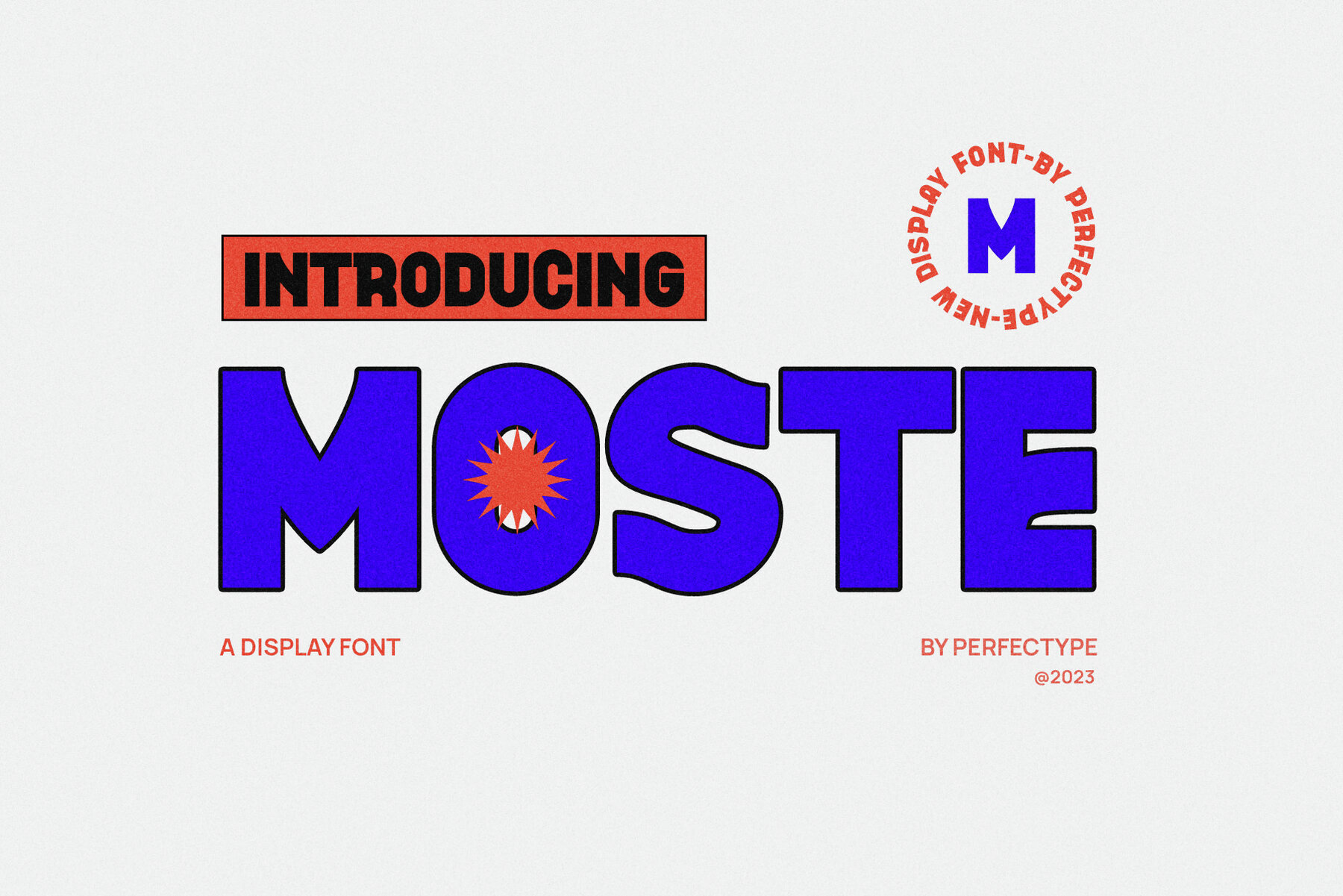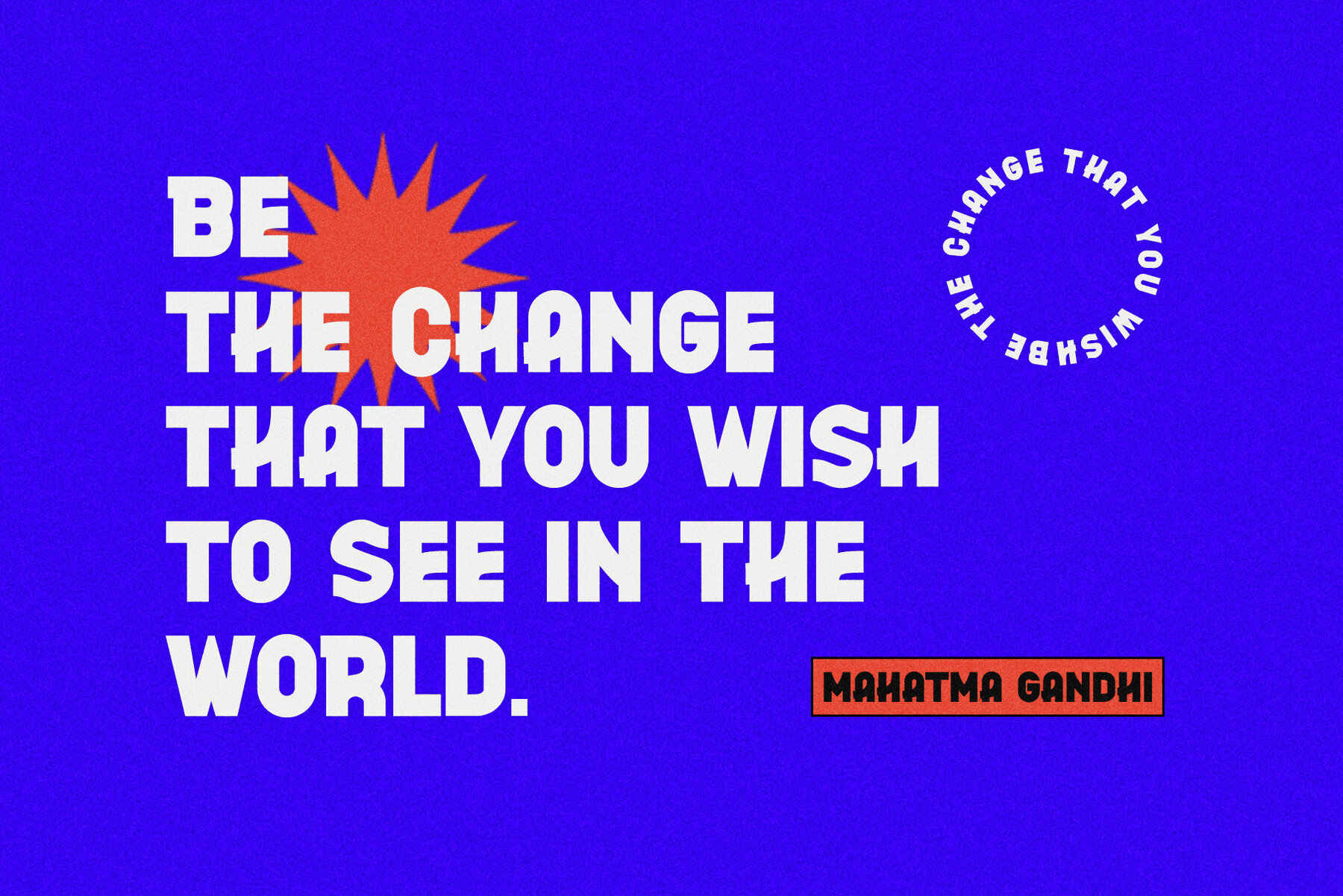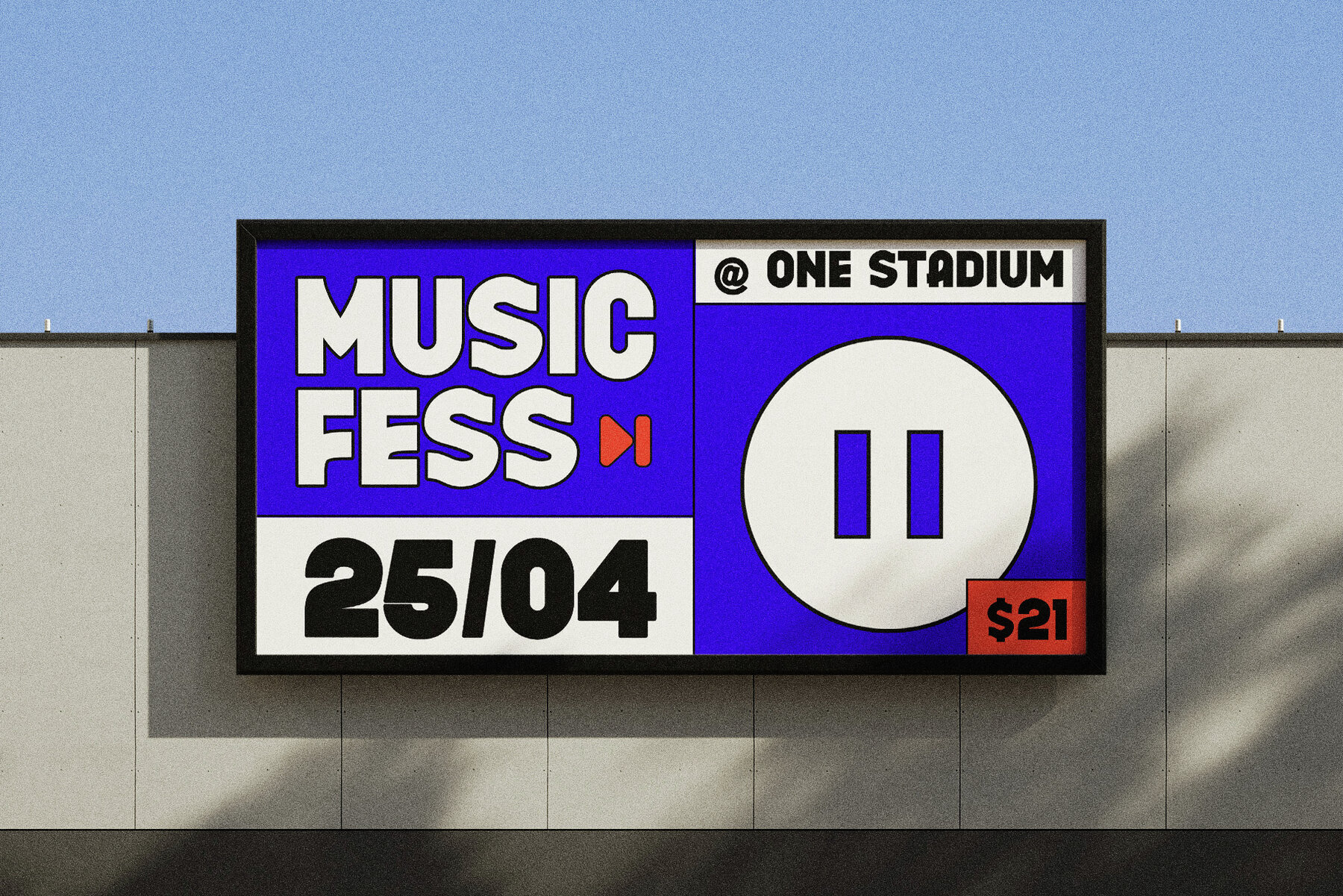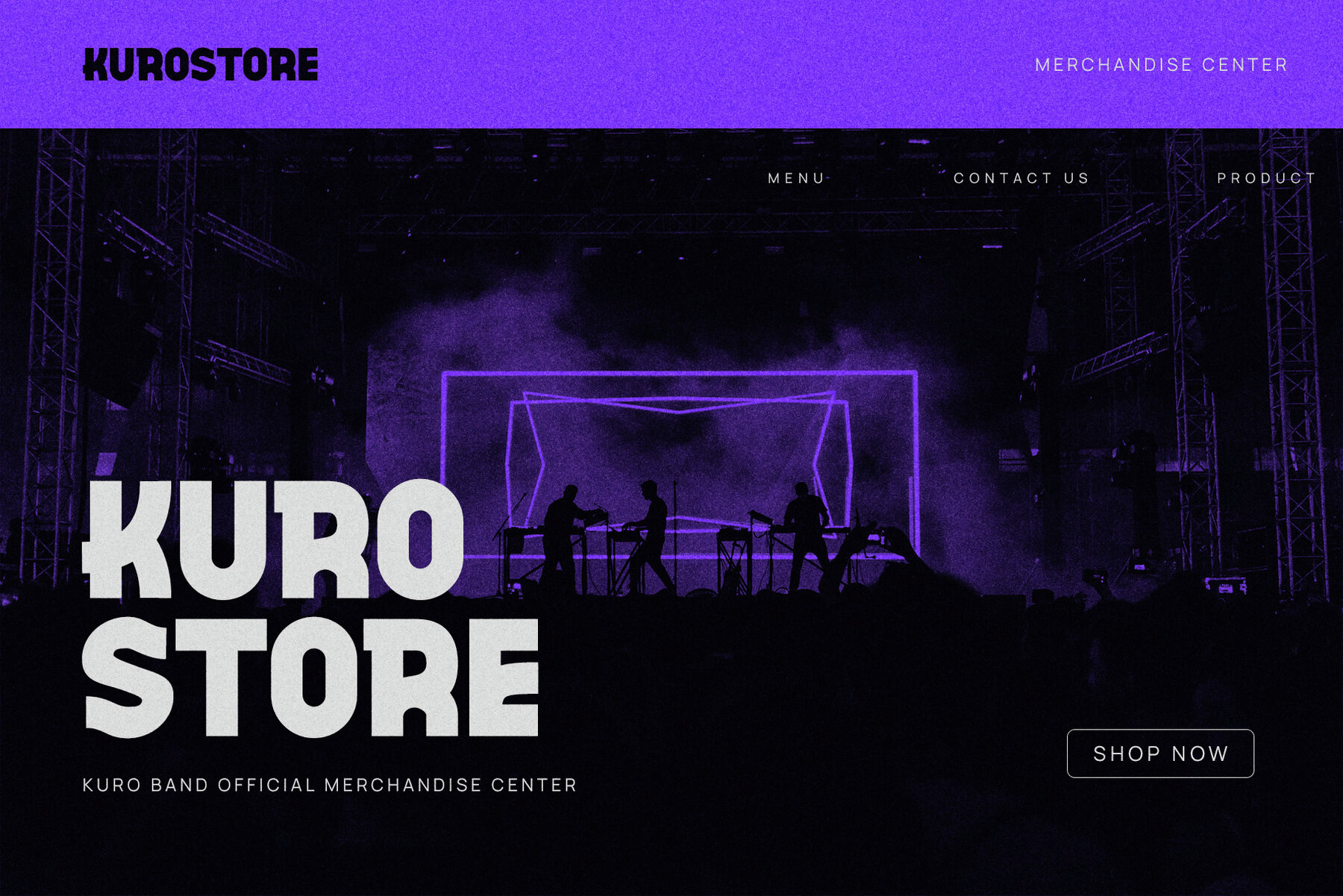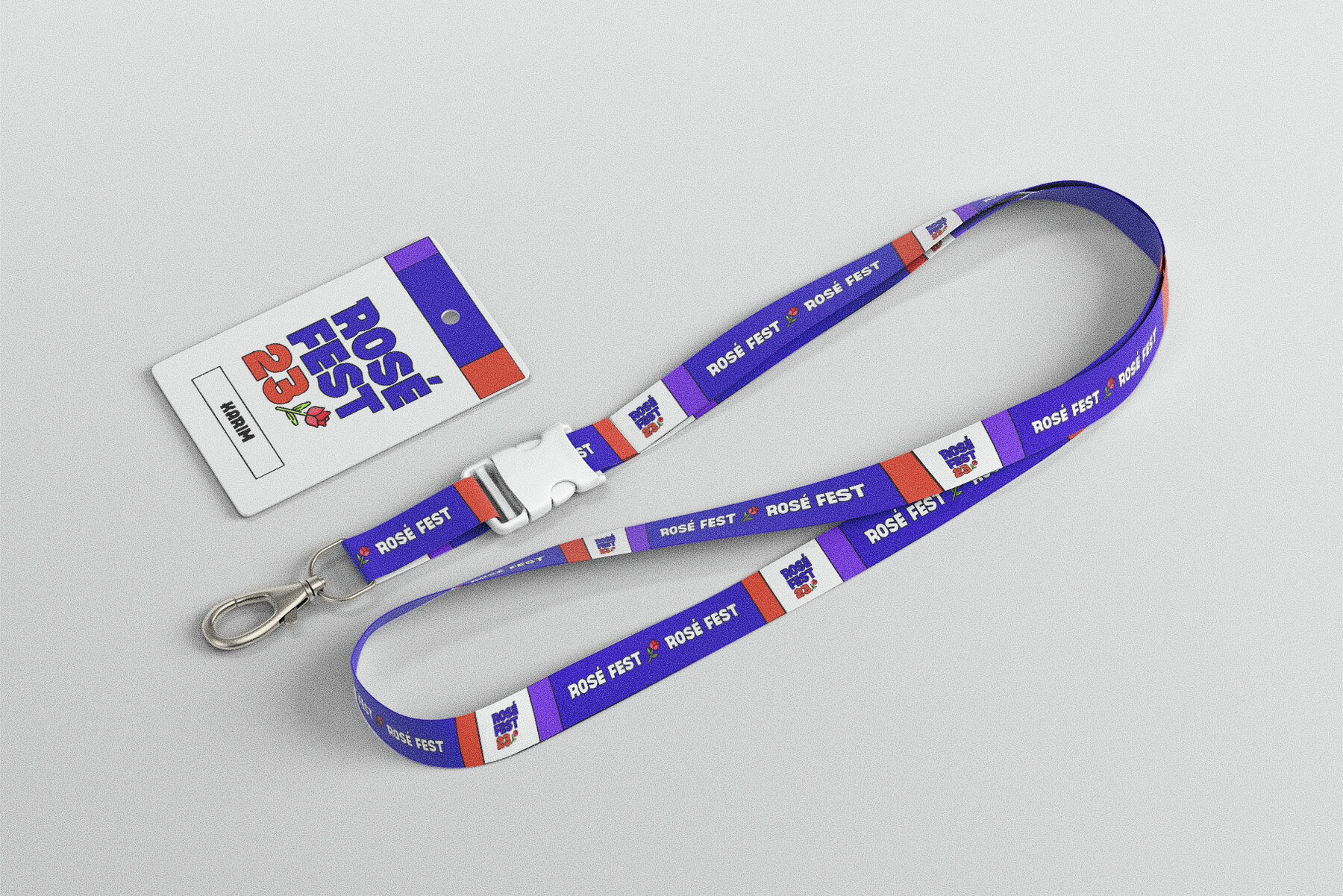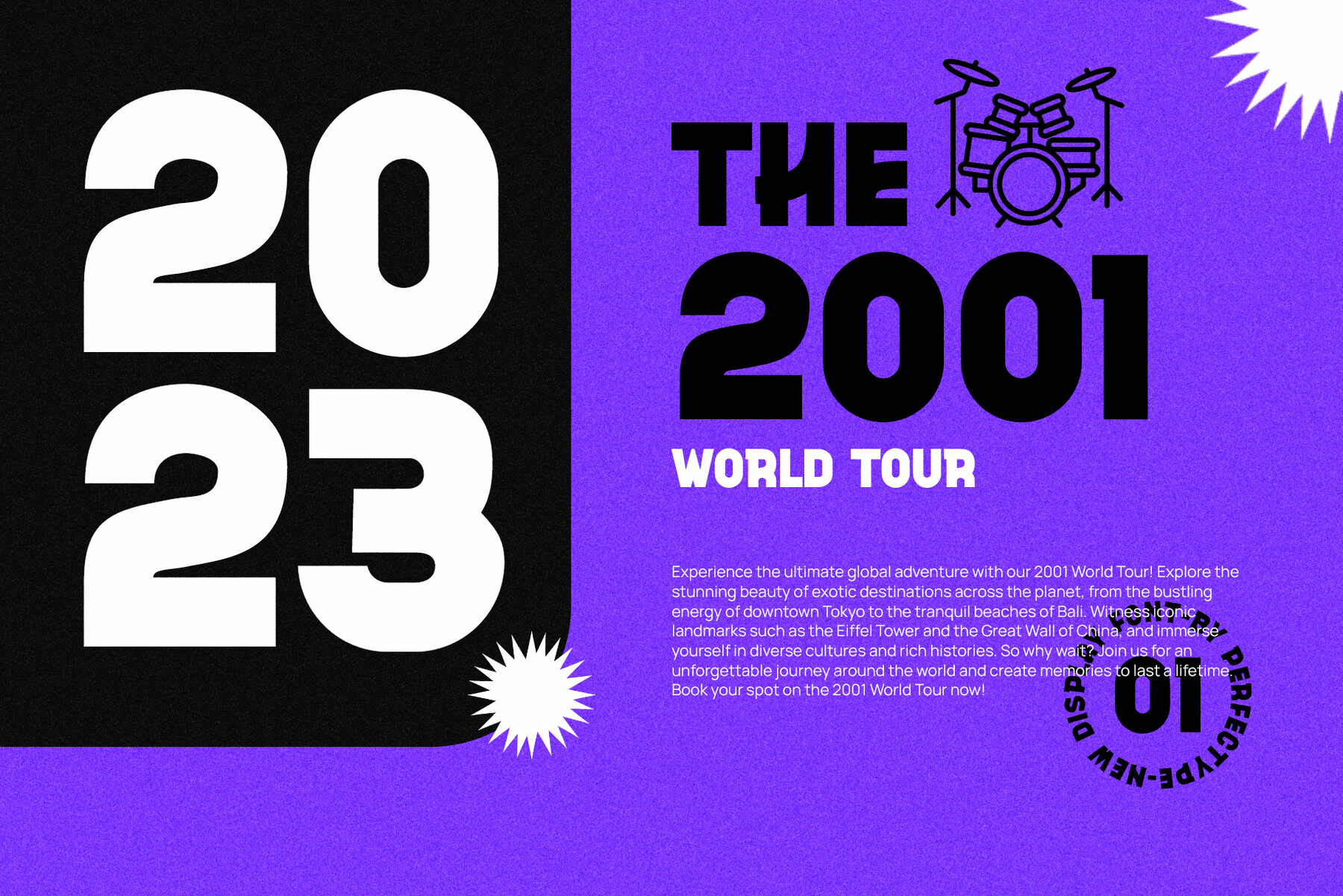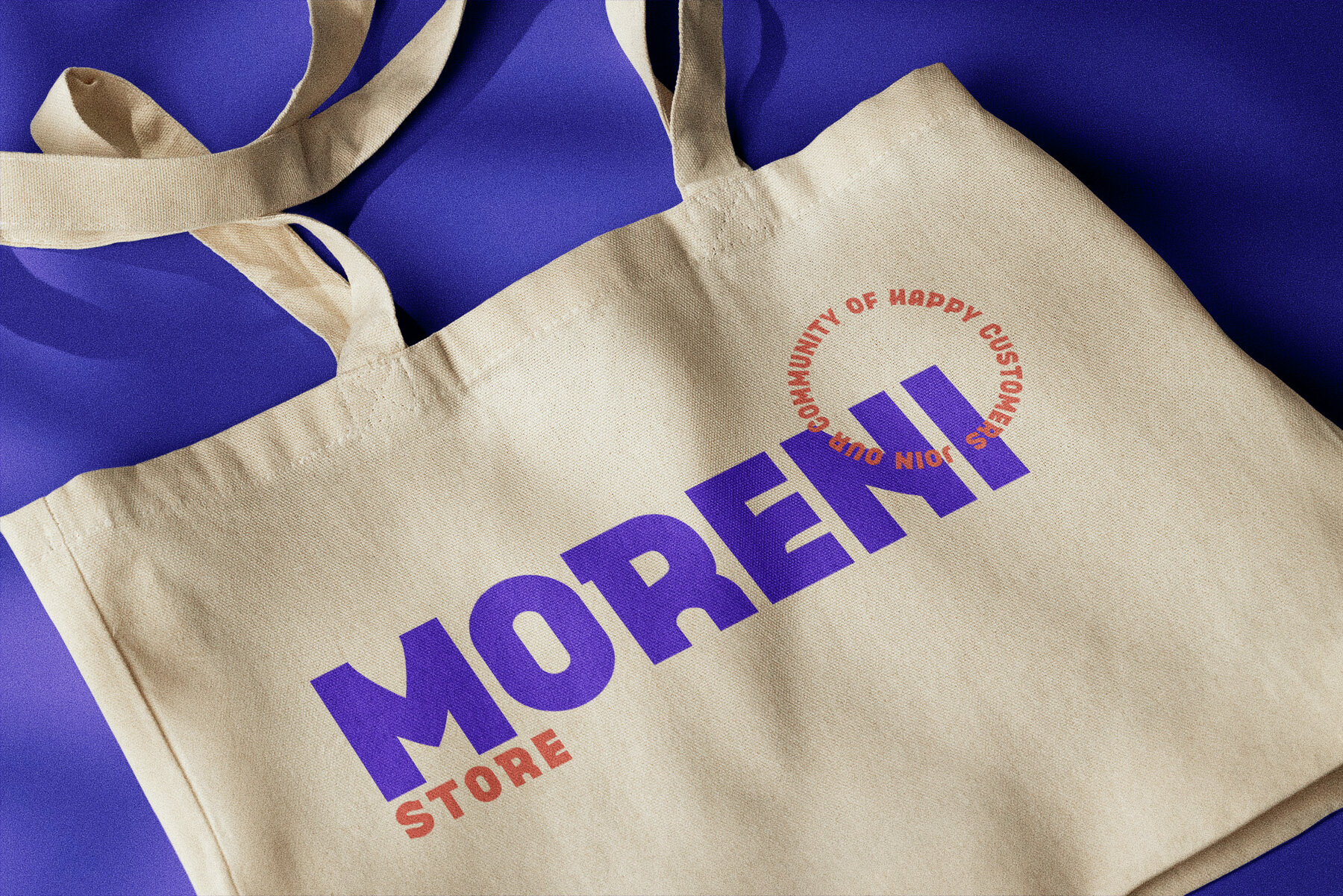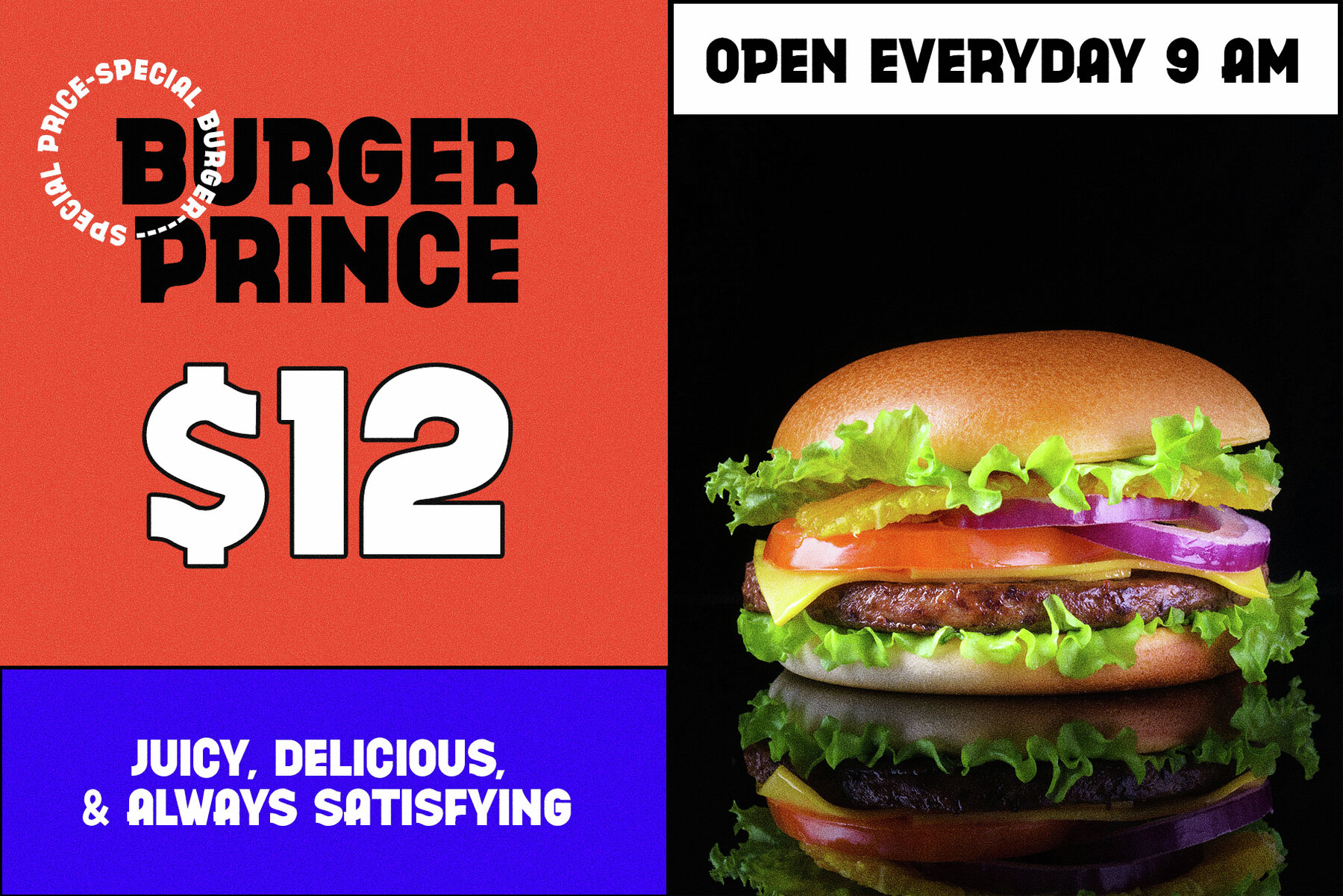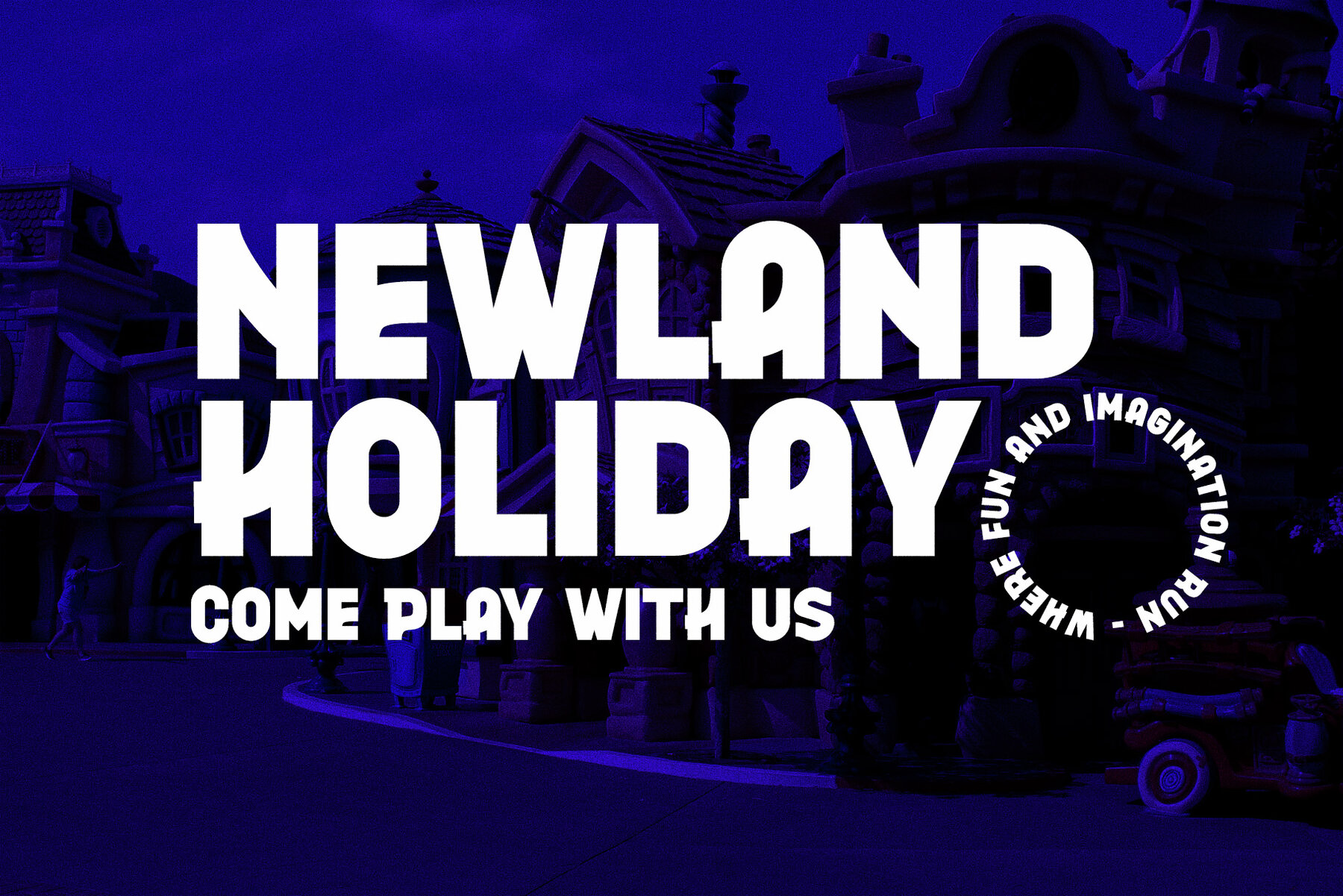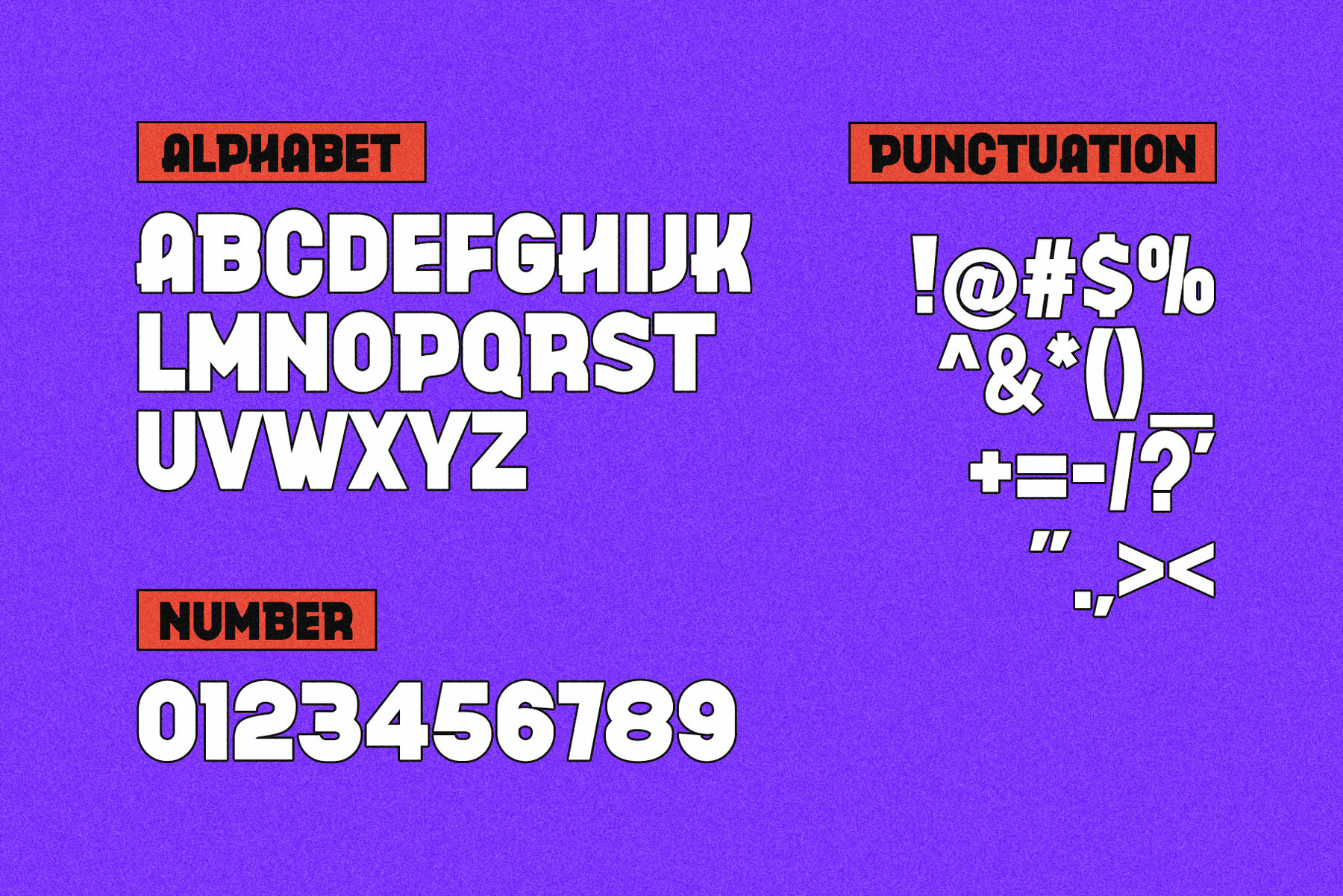
Moste Font
Moste Regular
Moste by Perfectype Studio is a sans serif font designed with balance and high readability in mind. Crafted with attention to detail and a commitment to neatness, this font is ideal for all your branding needs. Whether you're working on brochures, videos, advertisements, logos, magazines, layouts, posters, social media templates, or games, Moste offers a versatile solution. You can enhance your experience by using Moste with Adobe Illustrator or Adobe Photoshop. Enjoy the aesthetic balance and versatility of this font, perfect for elevating your design projects. For inquiries or support, feel free to reach out, and I'll be happy to assist.Moste: Elegant Sans Serif for Versatile Design